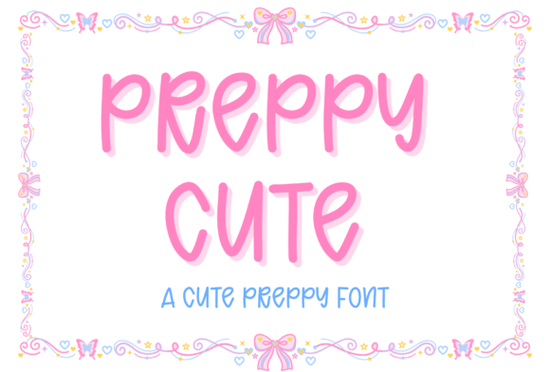
The Preppy Cute Font is a soft, preppy-style typeface built for makers who want clean, readable letters with a whole lot of character. Its monoline strokes and rounded edges sit right at the intersection of modern cute and timeless preppy, so it slides into sticker sheets, tumbler wraps, and planner covers without overwhelming the layout. If you’ve been digging through script fonts for something that feels friendly but still looks crisp at small sizes, this designer-friendly font may solve that exact need.
What makes a font feel genuinely “preppy” and cute?
Preppy design isn’t about loud decorations or complicated flourishes. It leans on pastel palettes, neat lines, and a polished but approachable energy. Fonts that work in this space almost always share a few quiet traits: a steady monoline weight, rounded terminals, and friendly letters that look hand-drawn without the mess. Preppy Cute hits all of those notes. The uppercase stays tidy, the lowercase feels bouncy without dropping legibility, and the overall impression is the kind you’d trust on a small business logo, a sublimation-ready T-shirt, or a set of classroom printables. Because the lines stay even, the font pairs easily with soft watercolor graphics, simple borders, and the grid-like layouts that crafters and print-on-demand sellers reach for every day.
Which project types work best with this typeface?
Any project that needs a cheerful but clean personality can benefit from Preppy Cute. The most common uses we see from crafters and small business owners include:
- Stickers and decals monoline letters cut and weed effortlessly, especially when you’re making planner stickers or laptop decals.
- Tumbler and mug wraps the font stays readable on curved surfaces, so names, quotes, and short phrases print beautifully.
- Planner inserts and printable worksheets teachers and content creators love that it feels playful but never competes with text-heavy layouts.
- Branding kits and social media templates a preppy font softens logos and highlight covers without looking juvenile.
- Heat-transfer vinyl and sublimation designs smooth outlines mean fewer snags during weeding, even on intricate Cricut projects.
Designers who normally reach for a flowing script like the playful Scribblemood Regular for sketchy charm often keep Preppy Cute as their go-to when the project still needs warmth but demands cleaner lines.
How does Preppy Cute Font compare to other craft-friendly script fonts?
It’s useful to have a few options on hand because different styles communicate different moods. Here’s how Preppy Cute sits alongside a few popular alternatives:
- For a more traditional romantic script, something like the delicate Kimily typeface offers elegant swashes and a thinner stroke. Preppy Cute, by contrast, trades the swashes for an even, chunky line that works better on bright gift tags and bold statement tees.
- When you need a versatile duo with both script and sans, the Midnight Sparkle Duo gives you a hand-lettered script paired with a simpler all-caps companion. Preppy Cute doesn’t have that second font, but its single style covers both titles and short sentences without feeling overdone.
- If a bouncy, sweet baseline is your priority, Honey Script brings a lot of playful movement. Preppy Cute keeps the bounce more measured, so it fits neatly into structured planner boxes and product labels where alignment matters.
- For old-school schoolhouse charm, the History Script has a vintage feel with textured edges. Preppy Cute takes the opposite approach: it’s smooth, modern, and practically designed for clean vectors and crisp prints.
These comparisons aren’t about “better” they’re about matching the right tool to your aesthetic and production process. If you regularly print on clear sticker paper, the consistent stroke of Preppy Cute often looks more polished than a script with heavy thin-to-thick contrast.
What file formats and symbols does Preppy Cute Font include?
While exact character sets vary with purchase, Preppy Cute typically includes uppercase, lowercase, numbers, and a core set of punctuation enough for everyday crafting. Some listings also bundle basic multilingual support or a few cute ligatures for a more hand-done look. If you need special glyphs, always check the product page for the full character map. For a majority of small business designs, the default set covers monograms, short quotes, product names, and social media graphics without missing beats.
How to style Preppy Cute so it feels fresh and not overdone
The clean lines make this font a strong team player. Here are a few styling tricks designers lean on: